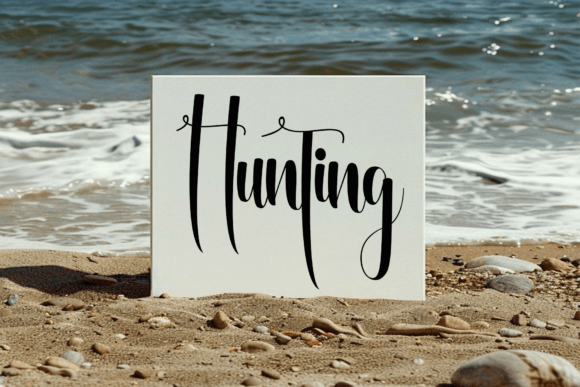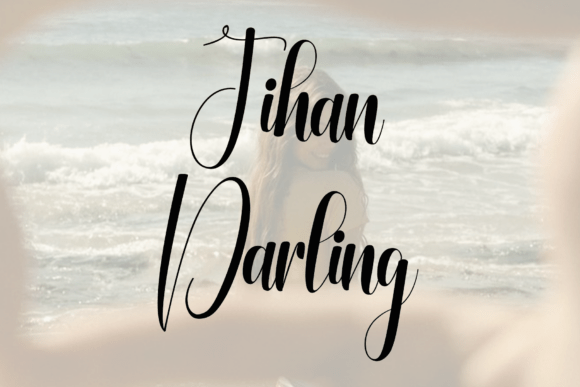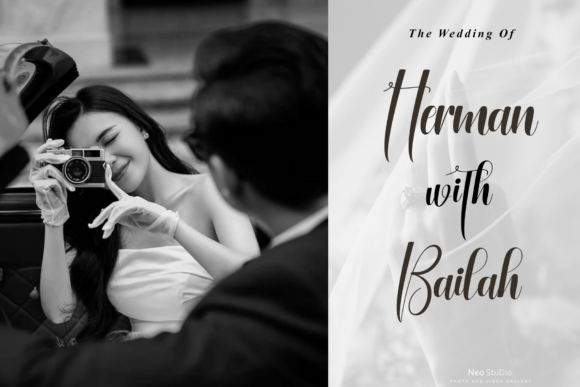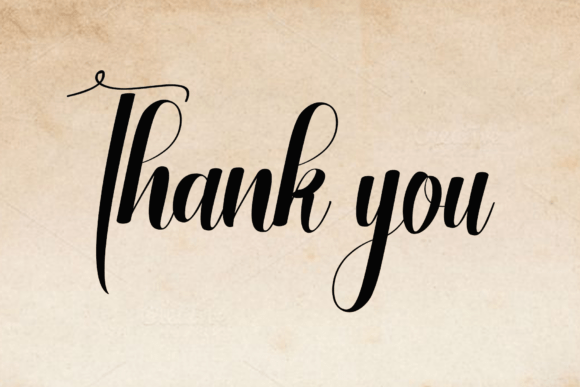
Introducing Helicopter Font: Elevate Your Designs with a Timeless Handwritten Style
Are you on the hunt for a font that adds a personal touch to your designs? Look no further than the Helicopter Font, a lovely and timeless handwritten font that is sure to capture the attention of your audience. With its unique and beautiful touch, this font is perfect for creating eye-catching logos, branding, and quotes that will make your design come alive!
The Characteristics of Helicopter Font
What sets Helicopter Font apart from other fonts is its distinctive handwritten style. Each letter has been carefully crafted to have a unique and beautiful touch, giving your designs a personal and human feel. The font’s timeless quality ensures that it will remain relevant and stylish for years to come, making it a great investment for designers and crafters.
Why Choose Helicopter Font?
- Eyecatching Logos: With Helicopter Font, you can create logos that grab attention and leave a lasting impression. The font’s unique style ensures that your logo will stand out from the crowd and help your brand to be remembered.
- Branding: Consistency is key when it comes to branding, and Helicopter Font provides a cohesive and professional look that will help to establish your brand’s identity.
- Quotes and Typography: Add a personal touch to your quotes and typography with Helicopter Font. The font’s handwritten style adds a level of sophistication and elegance to any design.
Helicopter Font is a versatile font that is perfect for a wide range of design projects, from logos and branding to quotes and typography. Whether you’re a designer, crafter, or DIY enthusiast, this font is sure to become a staple in your design toolkit.
Tips for Using Helicopter Font
- Experiment with Colors: Helicopter Font looks great in a variety of colors, so don’t be afraid to experiment and find the perfect hue for your design.
- Mix and Match: Combine Helicopter Font with other fonts to create a unique and eye-catching design.
- Pay Attention to Spacing: Make sure to pay attention to the spacing between letters and words to ensure that your design looks clean and professional.